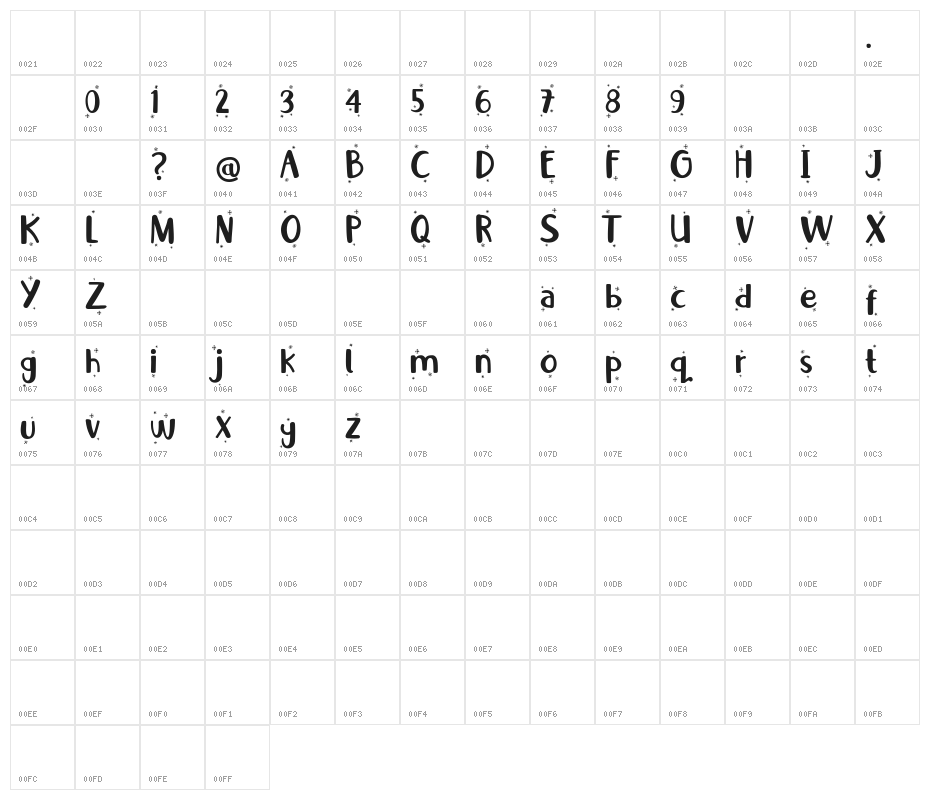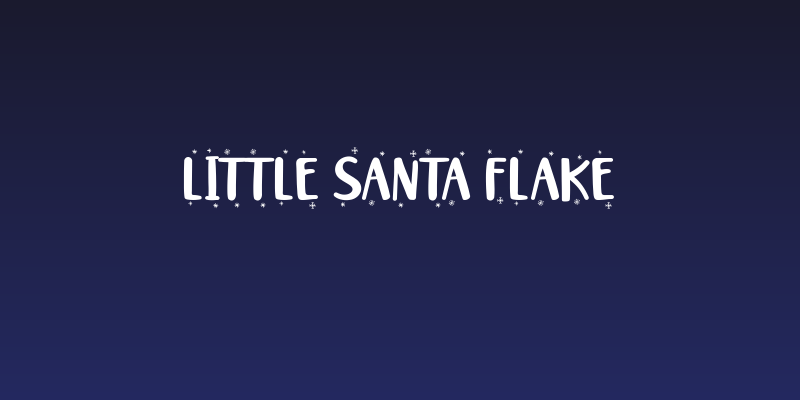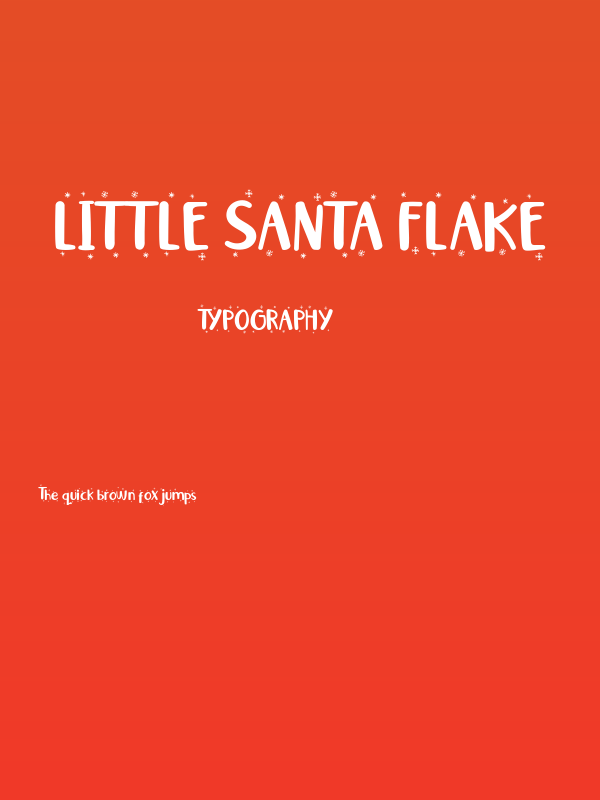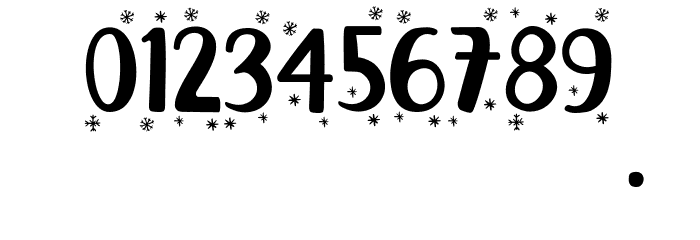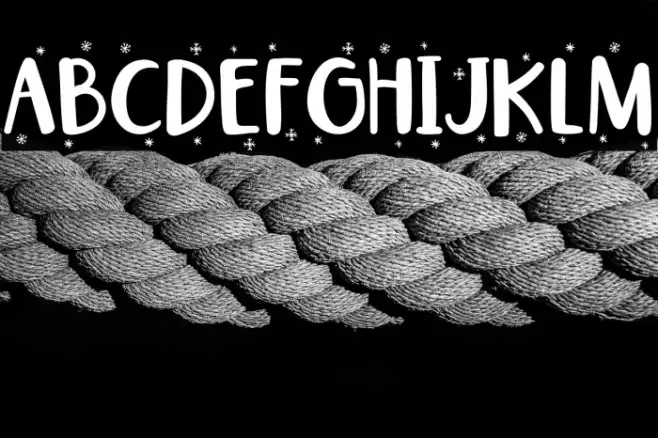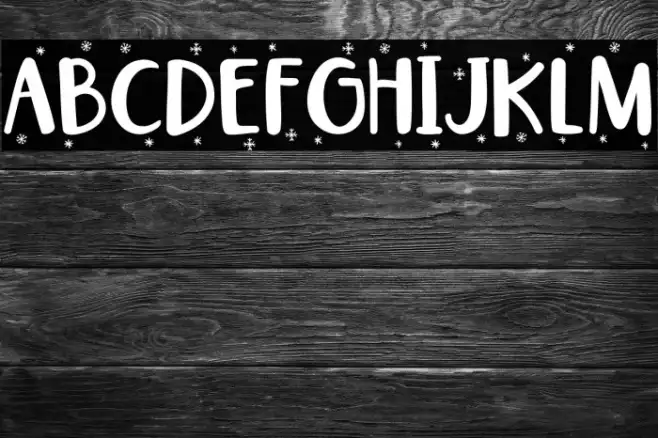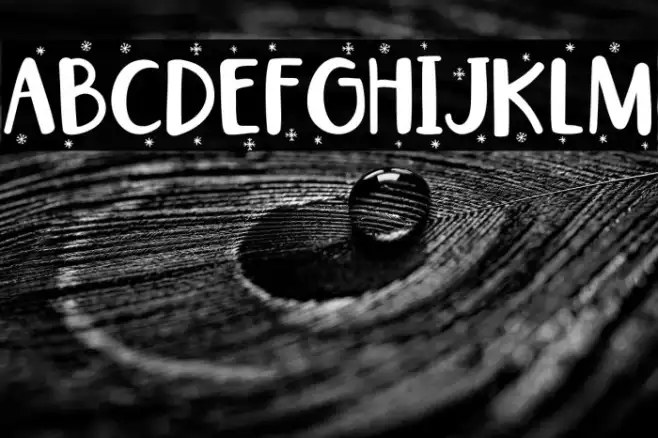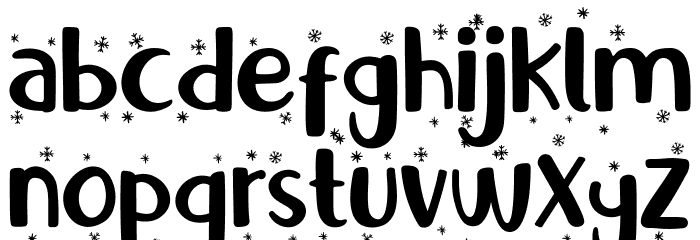
Little Santa Flake Font
Little Santa Flake Description
This playful and whimsical font features bold, rounded characters with a festive flair. Each letter is adorned with small snowflake-like accents, adding a touch of holiday cheer. The uppercase and lowercase letters maintain a consistent style, with smooth curves and a friendly appearance. The numbers are equally charming, designed to match the overall joyful theme. This font is perfect for creating a fun and inviting atmosphere, ideal for holiday-themed projects or any design that requires a touch of whimsy.
| Proposed Projects | Ideal for holiday cards, festive banners, children's book covers, and playful branding. |